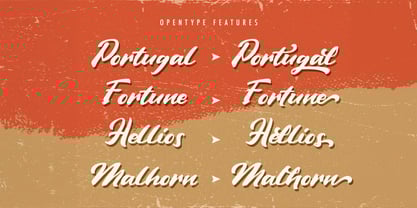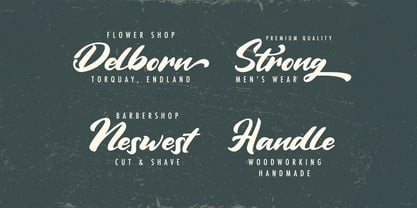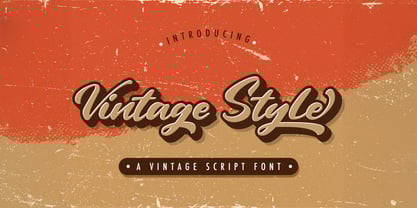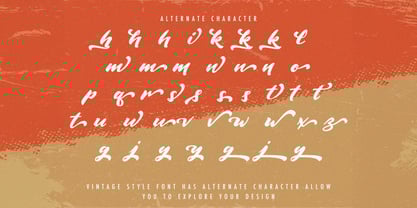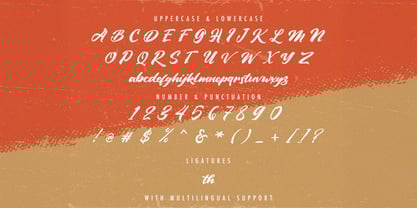
Vintage Style
by Stringlabs Creative Studio
The Vintage Style Font Family was designed by Virgiawan Listanto and published by Stringlabs Creative Studio. Vintage Style contains 1 styles. More about this family
Vintage Style is a bold and charismatic script font that channels the charm of retro typography with a modern twist. With its sweeping curves, dramatic strokes, and dynamic letterforms, this font brings a strong sense of vintage flair while maintaining a bold, contemporary presence. Perfect for projects that need to evoke nostalgia, style, and elegance, Vintage Style makes a statement in headlines, branding, and creative designs.
Designers: Virgiawan Listanto
Foundry: Stringlabs Creative Studio